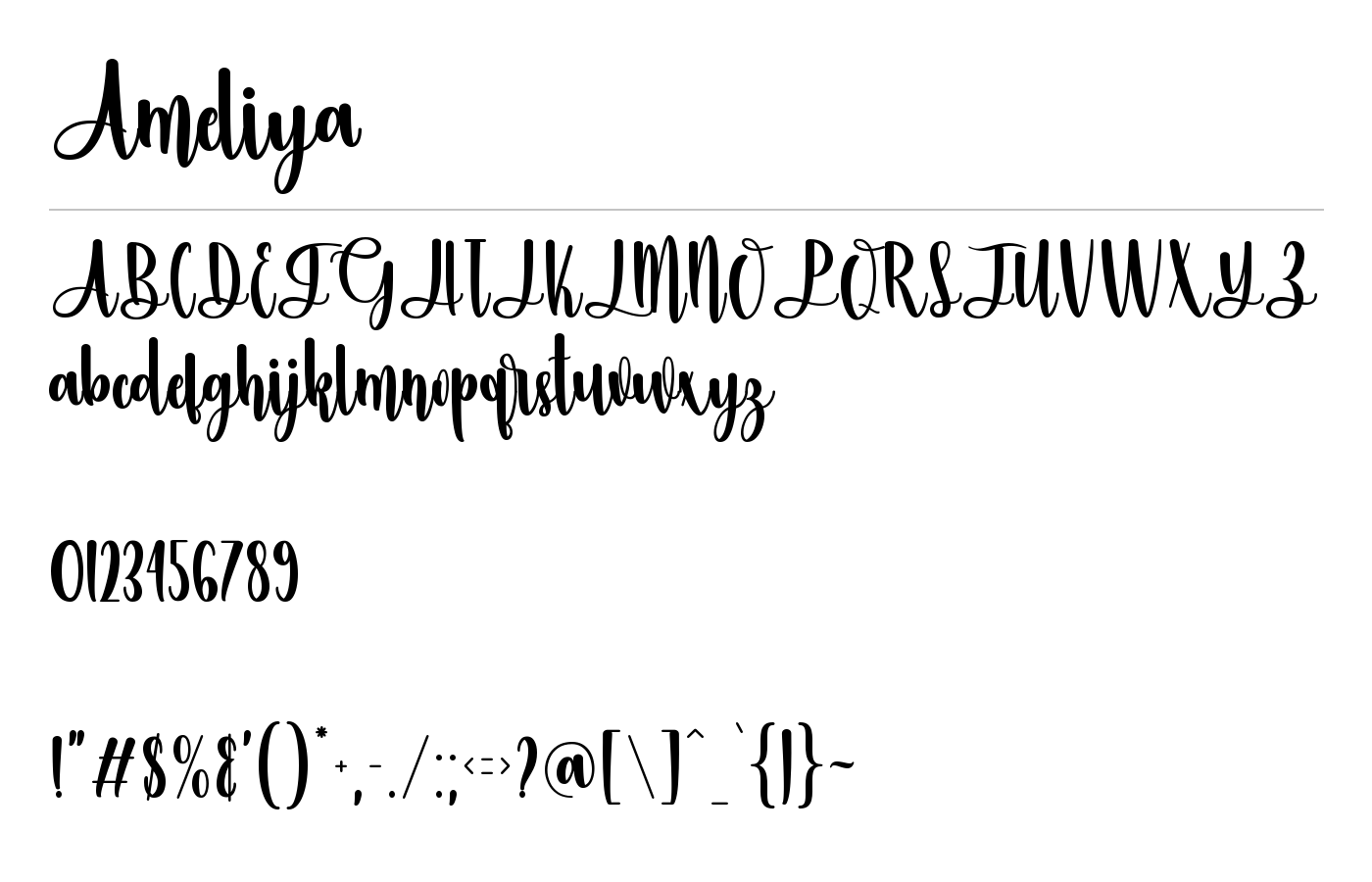
Ameliya is a playful and elegant script font with a distinctive hand-lettered style that combines thick and thin strokes for a lively yet refined look. Its tall, narrow letterforms and decorative swashes give it a charming, whimsical personality, making it perfect for fashion branding, invitations, and creative headlines. This font works best in contexts where a stylish, personal touch is desired, adding warmth and character to any design.
Ameliya Font
About Ameliya Font
| Font family | Ameliya Font |
| Designer | Vava Aryanto |